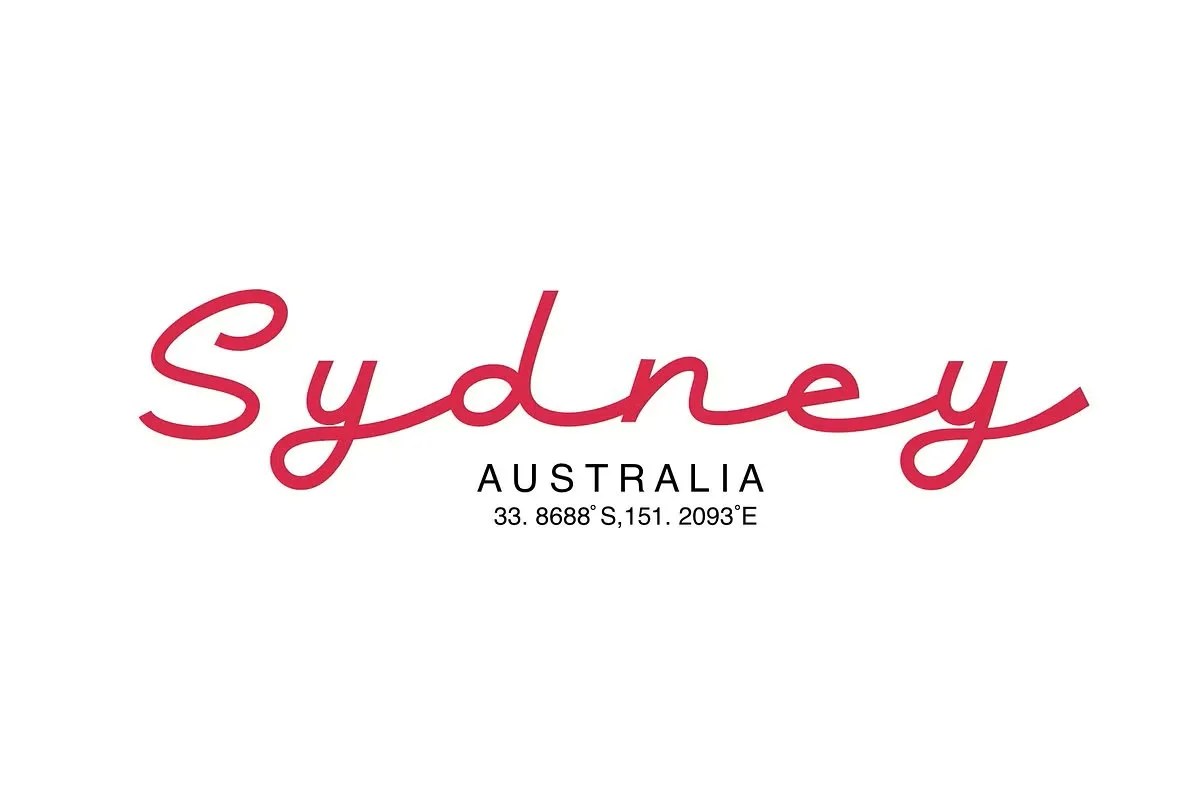
Lasta by HRDR. It is a truly elegant script font that flows with a delicate and sophisticated grace. This beauty typeface captures the timeless art of fine handwriting. Its thin, clean lines bring an immediate touch of class to any design layout. Lasta is perfect for projects that require a refined and deeply personal aesthetic. It speaks in a quiet, confident whisper, adding a layer of luxury to your creative work.
This font is the perfect choice for designs that demand sophistication. Specifically, it is a stunning option for wedding invitations, save-the-dates, and other formal event stationery. It also excels in creating personal, signature-style logos for photographers, designers, and consultants. Furthermore, this elegant script font lends a luxurious touch to branding for boutiques, jewelers, or high-end cosmetic lines. Use it to add a whisper of class to your social media graphics or to create beautiful, personalized stationery.
• Beauty and elegant script style
• Features fine, flowing letterforms
• Ideal for invitations, signatures, and branding
• Adds a sophisticated and romantic touch